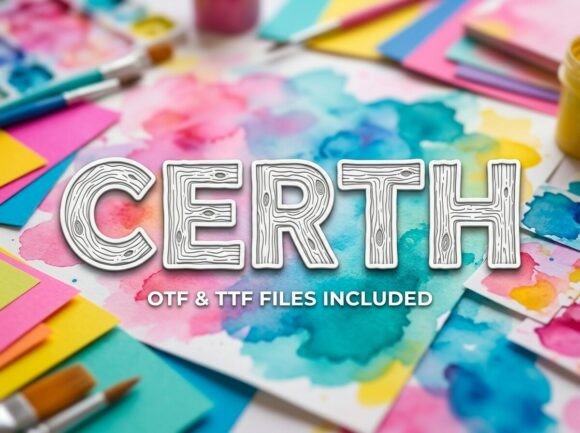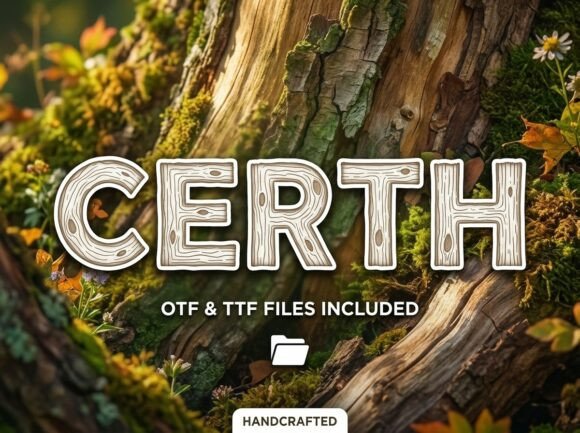
Certh Font: A Stunning Decorative Display Font for Creative Minds
Are you tired of using the same old fonts for your creative projects? Look no further than the Certh Font, a stunning decorative display font designed to make a statement. With its unique artistic elements and strong visual personality, this font is perfect for creators who want to break away from the ordinary and add a touch of elegance to their work.
What Makes Certh Font So Special?
Certh Font is a versatile font that is perfect for a variety of creative projects, including bold headlines, artistic logos, and creative packaging. Its professional and polished finish makes it ideal for designers who want to add a touch of sophistication to their work. Whether you’re working on a branding project, creating a logo, or designing a brochure, Certh Font is sure to impress.
Key Features of Certh Font
- Unique Artistic Elements: Certh Font features unique artistic elements that set it apart from other fonts. Its decorative and intricate design makes it perfect for creative projects that require a touch of elegance.
- Strong Visual Personality: This font has a strong visual personality that is sure to grab attention. Its bold and eye-catching design makes it perfect for headlines, logos, and other creative projects.
- Versatile: Certh Font is versatile enough for a variety of creative projects, including bold headlines, artistic logos, and creative packaging.
- Professional and Polished Finish: This font has a professional and polished finish that makes it ideal for designers who want to add a touch of sophistication to their work.
Why Choose Certh Font?
There are many reasons why Certh Font is a great choice for designers and crafters. Here are just a few:
- Add a Touch of Elegance: Certh Font adds a touch of elegance and sophistication to any creative project.
- Stand Out from the Crowd: With its unique artistic elements and strong visual personality, Certh Font is sure to help your creative project stand out from the crowd.
- Perfect for Creative Projects: This font is perfect for a variety of creative projects, including bold headlines, artistic logos, and creative packaging.
Tips for Using Certh Font
Here are a few tips for using Certh Font in your creative projects:
- Use it for Headlines: Certh Font is perfect for headlines and titles. Use it to add a touch of elegance and sophistication to your creative project.
- Pair it with Other Fonts: Certh Font pairs well with other fonts. Experiment with different font combinations to find the perfect look for your creative project.
- Use it for Logos: This font is perfect for logos and branding projects. Use it to add a touch of elegance and sophistication to your brand.